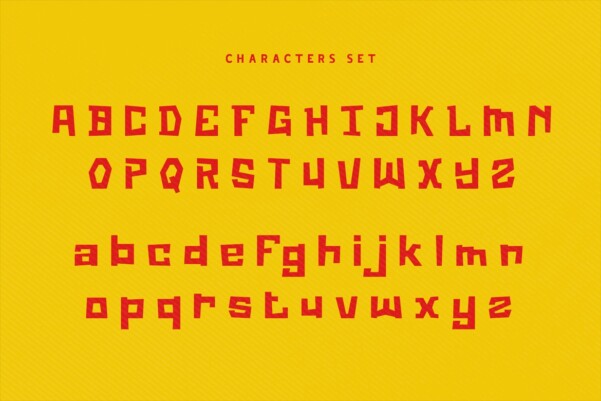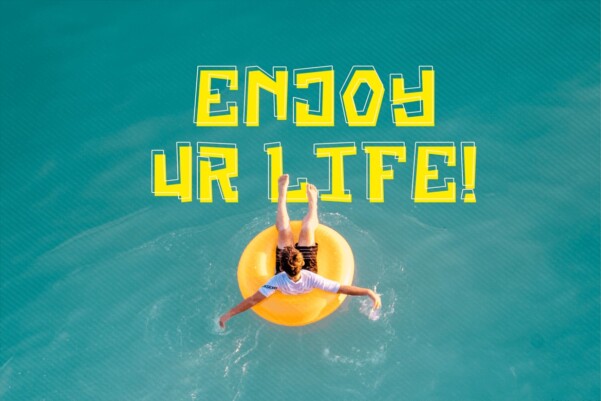
Lost Throne Font
Lost Throne font offers playful regular and outline styles, perfect for whimsical designs, enhanced by unique alternates and ligatures